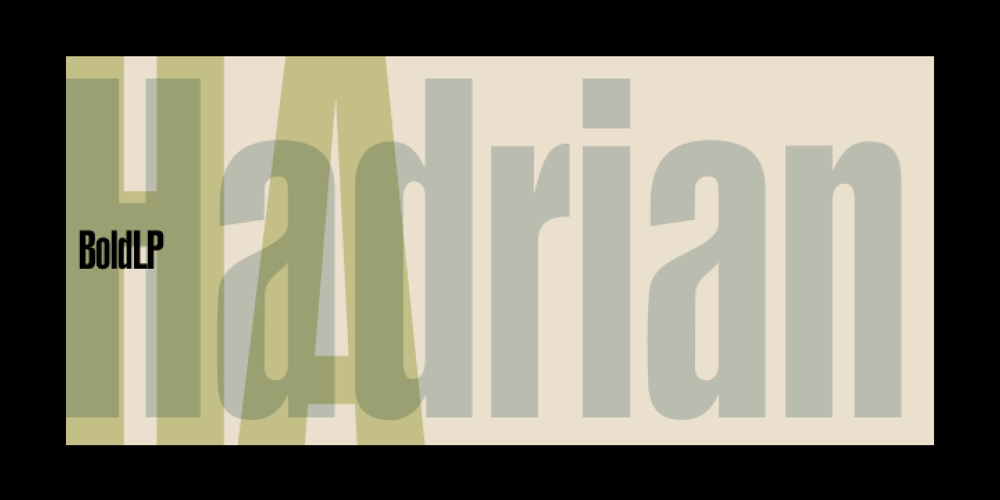
Hadrian LP
Hadrian LP font
Hadrian LP Font Family was designed by Garrett Boge and published by LetterPerfect. Hadrian LP contains 1 styles and family package options. Hadrian Bold pushes the limits for an extra-condensed titling face. Though remaining in the tradition of the 20th-century ‘grotesque’ designs, its heavy verticality and tight spacing demand attention for headlines at virtually any size.